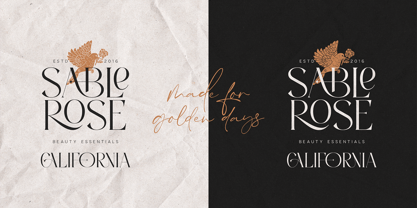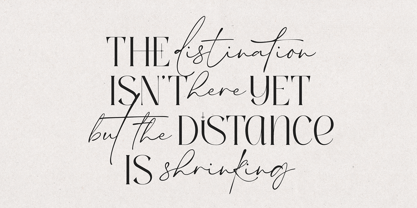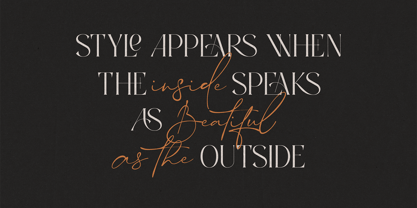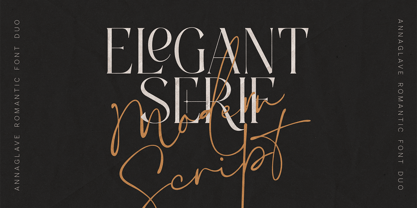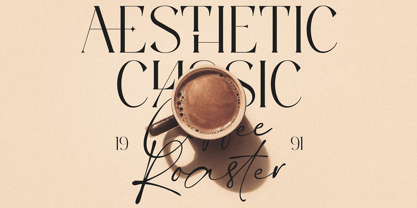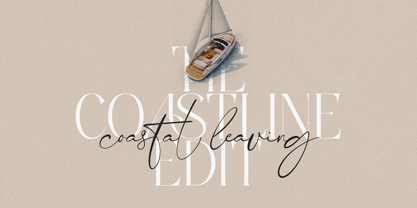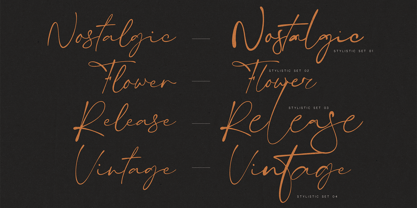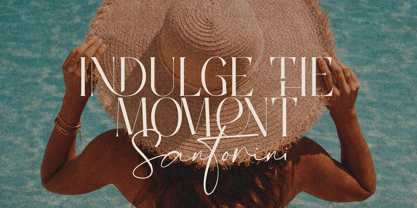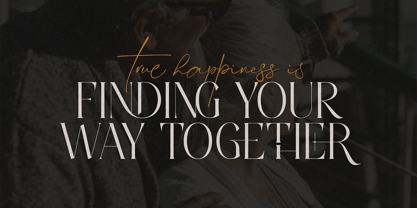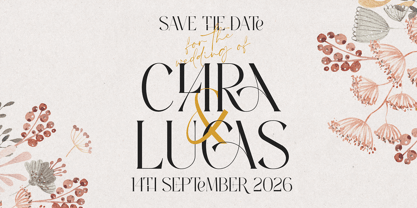
Anna Glave
von VP Creative Shop
Die Schriftfamilie Anna Glave wurde von Vladimir Fedotov, Plamen Petrov entworfen und von VP Creative Shop veröffentlicht. Anna Glave enthält 2 Stile und Familienpaketoptionen. Mehr über diese Familie
Anna Glave - Romantic Serif & Script Font Duo Anna Glave is a refined romantic font duo that blends a modern high-contrast serif with a graceful handwritten script, designed to create elegant, emotional, and timeless typography. This duo is crafted for designers who want to elevate branding with a sense of luxury, nostalgia, and modern sophistication. Inspired by classic editorial typography and romantic calligraphy, Anna Glave delivers a perfect balance between structure and expression - making it ideal for both bold headlines and intimate handwritten accents.
Designer: Vladimir Fedotov, Plamen Petrov
Foundry: VP Creative Shop